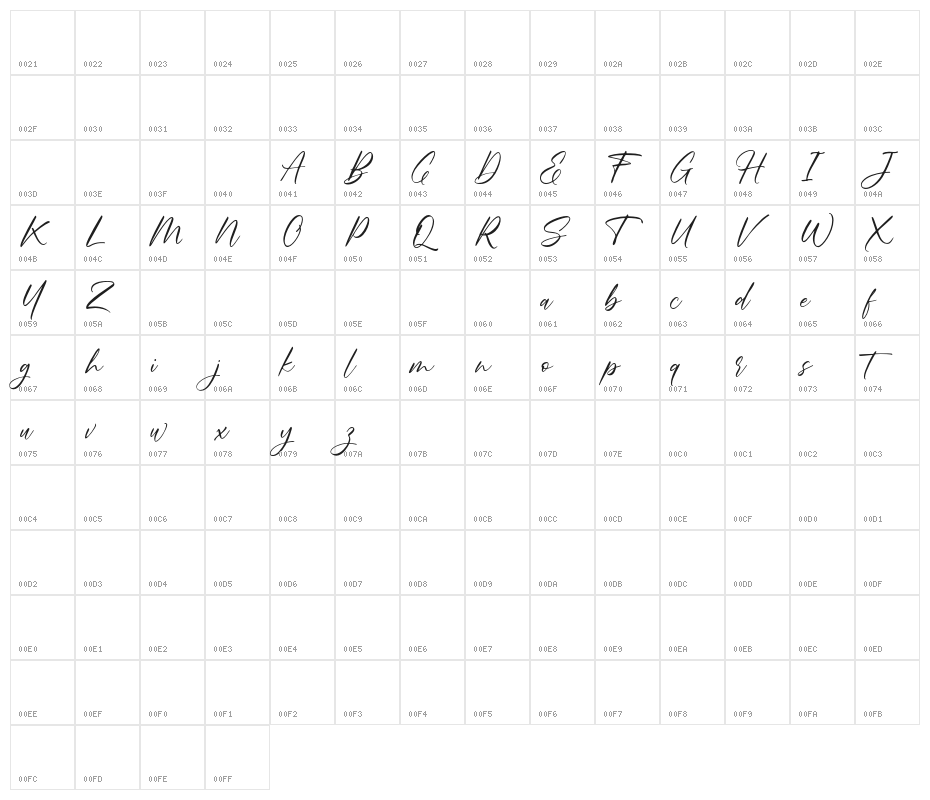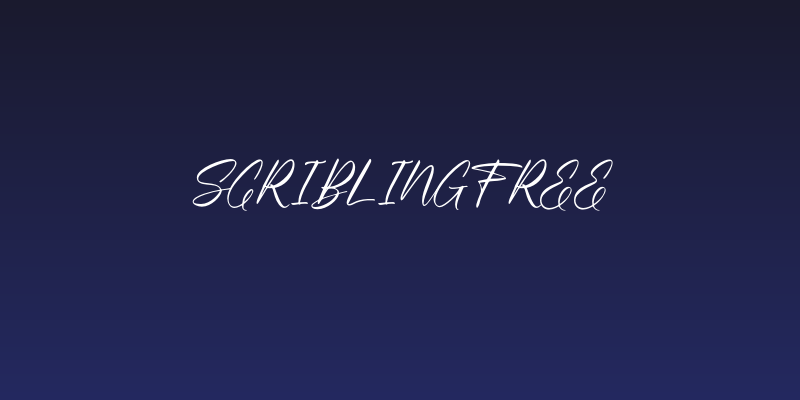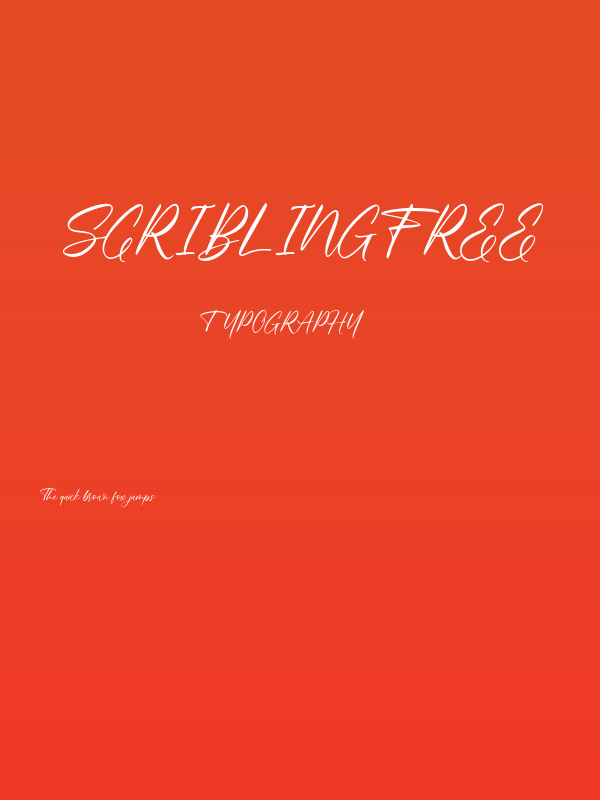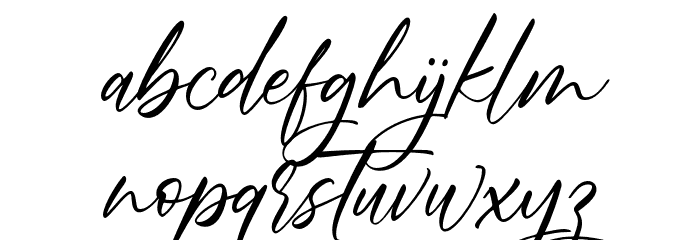
ScriblingFREE Font
ScriblingFREE Description
This font features an elegant and flowing script style, characterized by its smooth, cursive strokes and a handwritten appearance. The uppercase letters are tall and graceful, while the lowercase letters maintain a consistent fluidity, creating a harmonious balance. The font exudes a sense of sophistication and creativity, making it ideal for projects that require a personal touch. Its design is reminiscent of calligraphy, with each letter seamlessly connecting to the next, enhancing readability while maintaining an artistic flair. The overall aesthetic is both modern and timeless, suitable for a variety of design applications.
| Use Case | Logos, Invitations, Decorative text |
| Proposed Projects | Ideal for wedding invitations, greeting cards, branding, and logo design. |